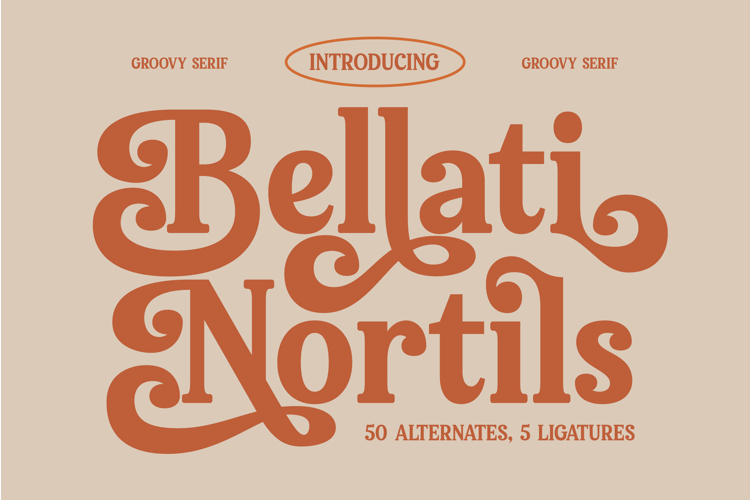
Bellati Nortils - Groovy Serif Font
Ignite your designs with an unforgettable aesthetic that transcends trends. Introducing Font Bellati Nortils - Serif Font Groovy, a captivating tall serif display font meticulously crafted to deliver a fusion of sophisticated elegance and a distinct groovy allure. Its high-contrast strokes and refined serifs create a visually striking presence, perfect for making a bold and memorable statement across any medium. This font is engineered to command attention and infuse your projects with unparalleled character.
Unlock limitless creative potential with Font Bellati Nortils - Serif Font Groovy’s exceptional typographic richness. Boasting an impressive collection of 34 alternates and 13 ligatures, totaling 377 glyphs, this font offers unparalleled design flexibility. These extensive features empower designers to customize text, ensuring truly unique branding and personalized typographic arrangements that stand out from the conventional. Explore diverse stylistic variations to perfectly match your creative vision.
Expand your global reach effortlessly with unparalleled linguistic adaptability. With its extensive multilingual support, Font Bellati Nortils - Serif Font Groovy adapts seamlessly across global markets, making it incredibly versatile for international projects. This ensures your message resonates clearly and stylishly, no matter the language, solidifying its position as an indispensable tool for designers with a global perspective.
Font Bellati Nortils - Serif Font Groovy is the quintessential choice for elevating projects demanding both impact and refinement. It is perfect for luxury branding, high-end editorial design, fashion campaigns, premium packaging, distinctive logo creation, and impactful headline typography. Employ this font to instill a sense of exclusive charm and timeless sophistication into any design, ensuring your brand leaves a lasting, positive impression.